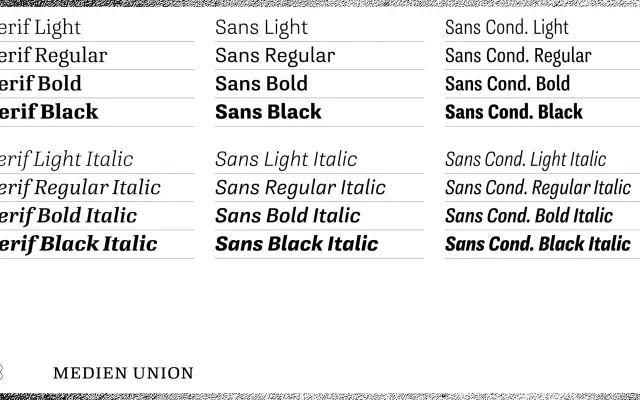
Medien Union
Character Type · Henning Skibbe, Tobias Herber
A superellipse-based type system designed for Medien Union, one of Germany's largest publishing groups, covering newspapers, books and digital across serif, sans and condensed families.
Commissioned for Medien Union, this system spans serif, sans and condensed families intended to work across the group's diverse media brands including newspapers, school book publishers and radio stations. The geometric construction derives from the superellipse in counter forms such as the o, b and p, offset by tilted outer strokes that aid legibility and allow tighter text setting. Designers Henning Skibbe and Tobias Herber have built coverage across Latin, Greek and mathematical scripts to serve demanding editorial and educational environments.
The family is built on the superellipse as its core geometric principle, applied to counter forms within glyphs, while angled outer strokes allow for tighter setting — a geometric sans with functional newspaper and digital priorities.